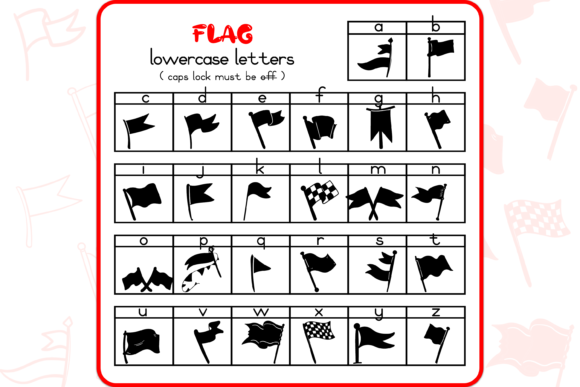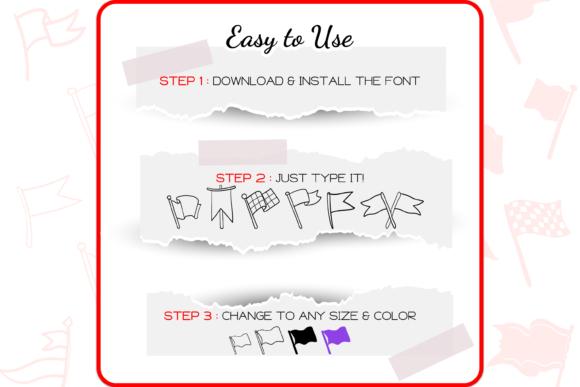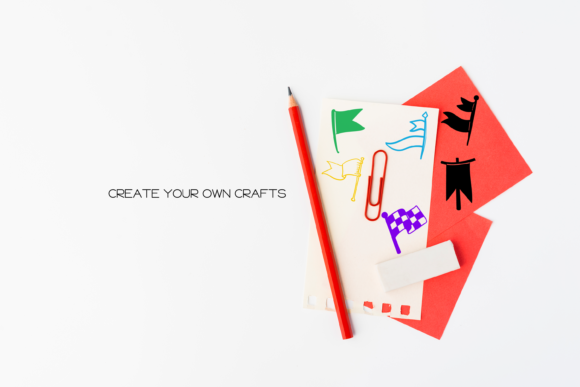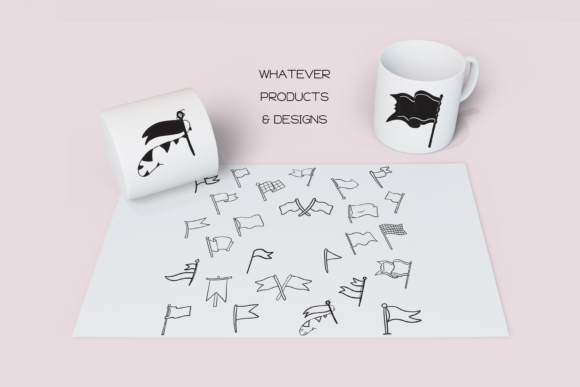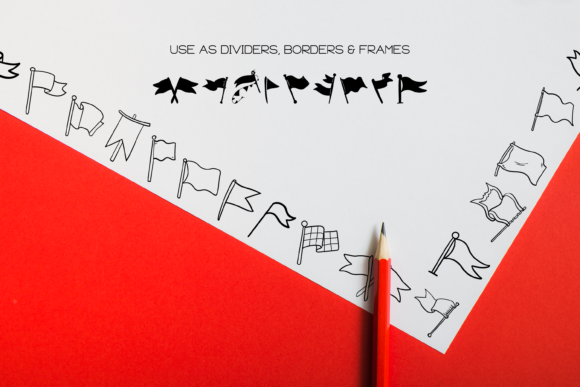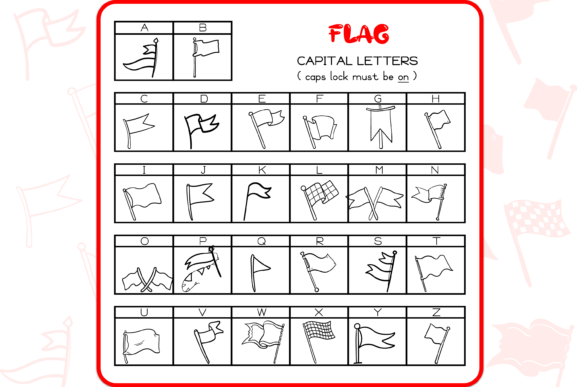
The Flag Font
About The Flag Font
“The Flag” is a unique and cute dingbats font that offers a collection of 52 hand-drawn doodles, each representing different flags. Adding this font to your creative ideas can bring a distinctive and outstanding touch to your artwork.
With “The Flag” font, you have a variety of flag-inspired symbols at your disposal. Whether you’re designing for patriotic occasions, international events, or simply want to incorporate flags into your artwork, this font provides an excellent resource.
The hand-drawn style of the doodles adds a charming and whimsical element to your designs. Each flag is carefully crafted, capturing the essence and details of the original flags. This attention to detail makes the font visually appealing and allows you to create eye-catching compositions.
One of the advantages of using “The Flag” font is its versatility. The doodles can be used as decorative elements, icons, or even as standalone graphics, depending on the context of your design. They can be incorporated into various projects such as posters, flyers, social media graphics, and more.
Whether you’re designing for national holidays, sporting events, or cultural celebrations, “The Flag” font can help you represent different countries and their identities. It allows you to showcase diversity and create a sense of connection and inclusivity in your artwork.
To make the most of “The Flag” font, consider experimenting with colors, sizes, and compositions. You can mix and match the flag doodles, combine them with other graphic elements, or use them to create patterns and backgrounds. The possibilities are endless, and you can let your creativity guide you.
In summary, “The Flag” is a unique and cute dingbats font that can add an outstanding touch to your artwork. With its collection of hand-drawn flag doodles, it provides a valuable resource for representing different countries and creating visually appealing designs. So, embrace the versatility of “The Flag” font and let it enhance your creative ideas.